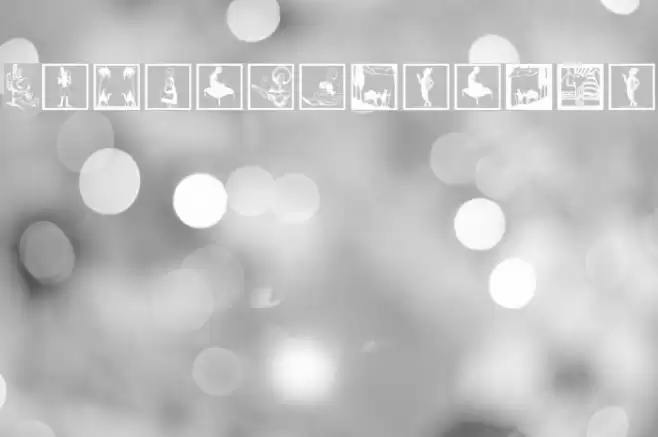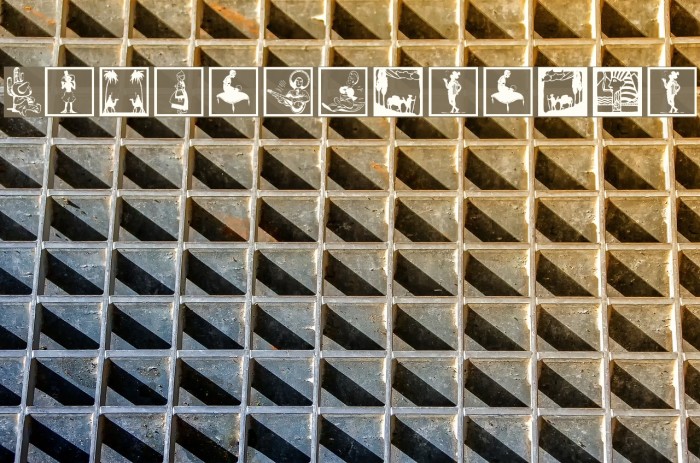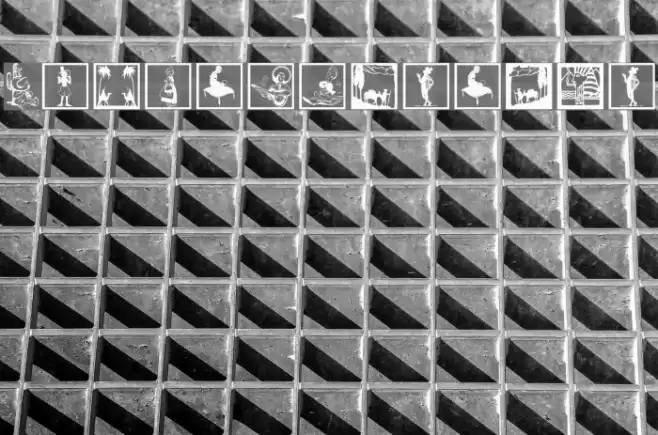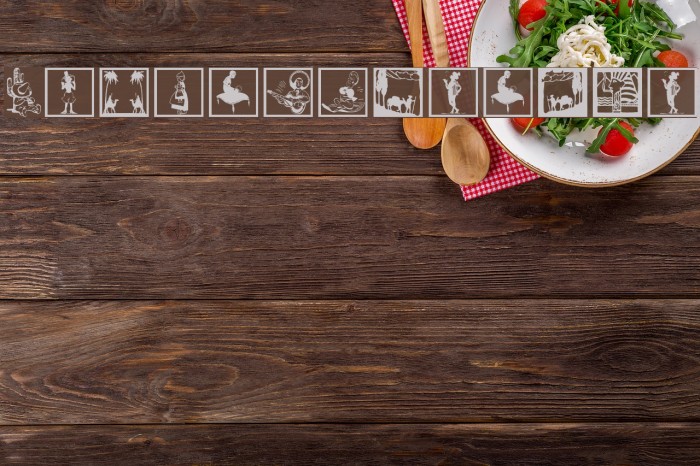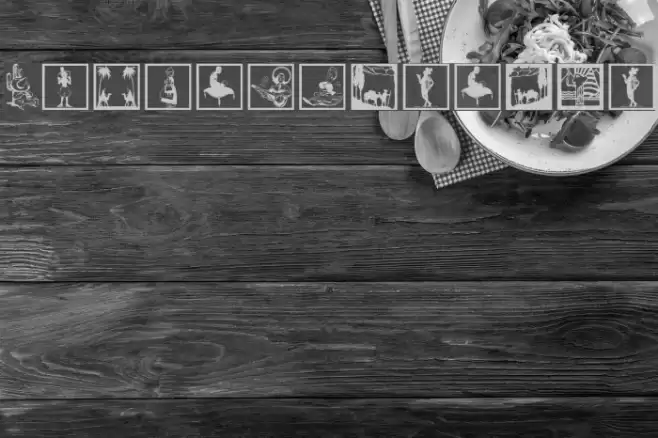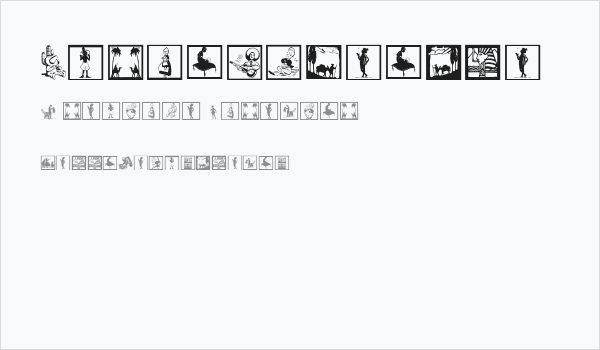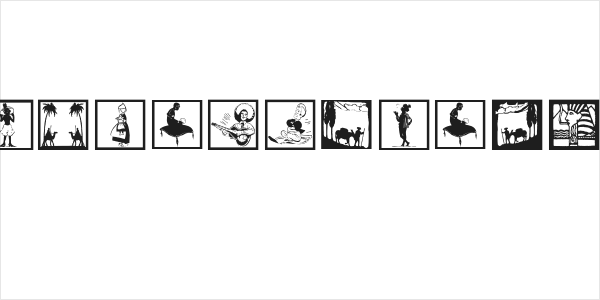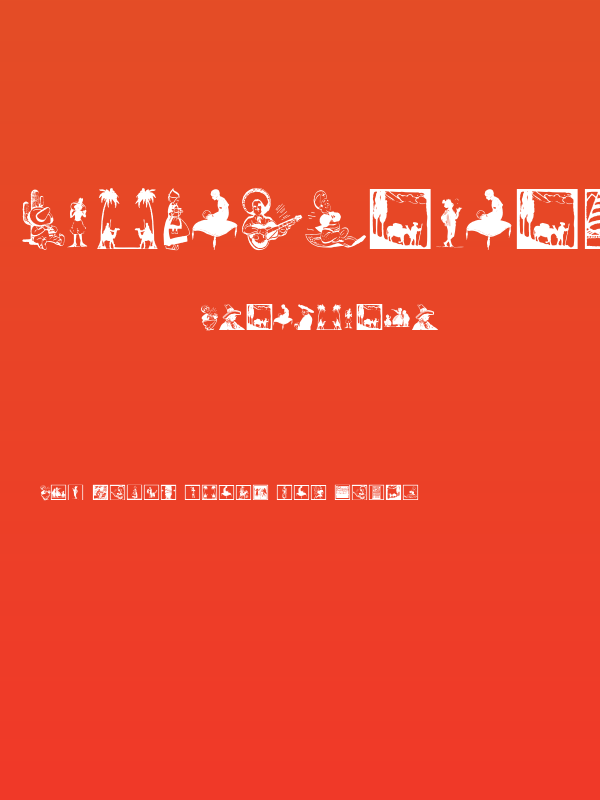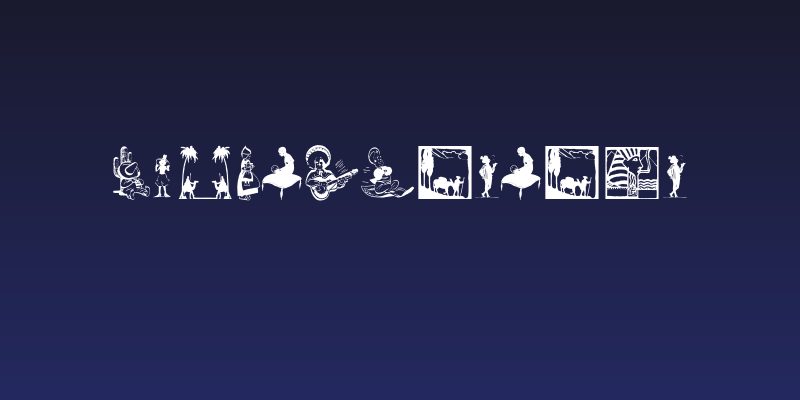
VariousPeople Font
VariousPeople Description
A decorative font composed of detailed black-and-white illustrations depicting various people, scenes, and activities, each character represented by a unique vignette or silhouette within a square or rectangular frame.
| Overall Style | Decorative, Vintage |
| Use Case | Logos, Headlines, Themed graphics, Artistic displays |
| Proposed Projects | Posters, event invitations, educational materials, themed branding, creative projects. |